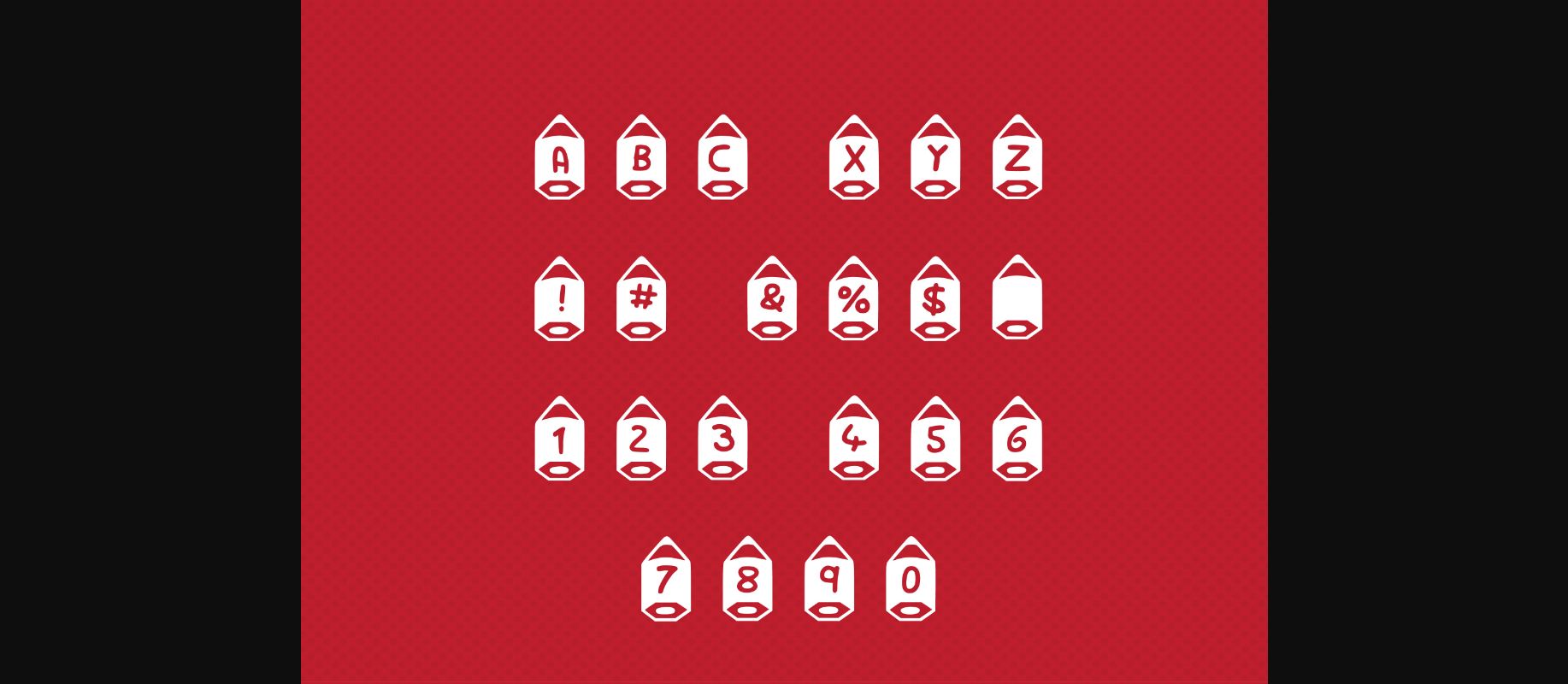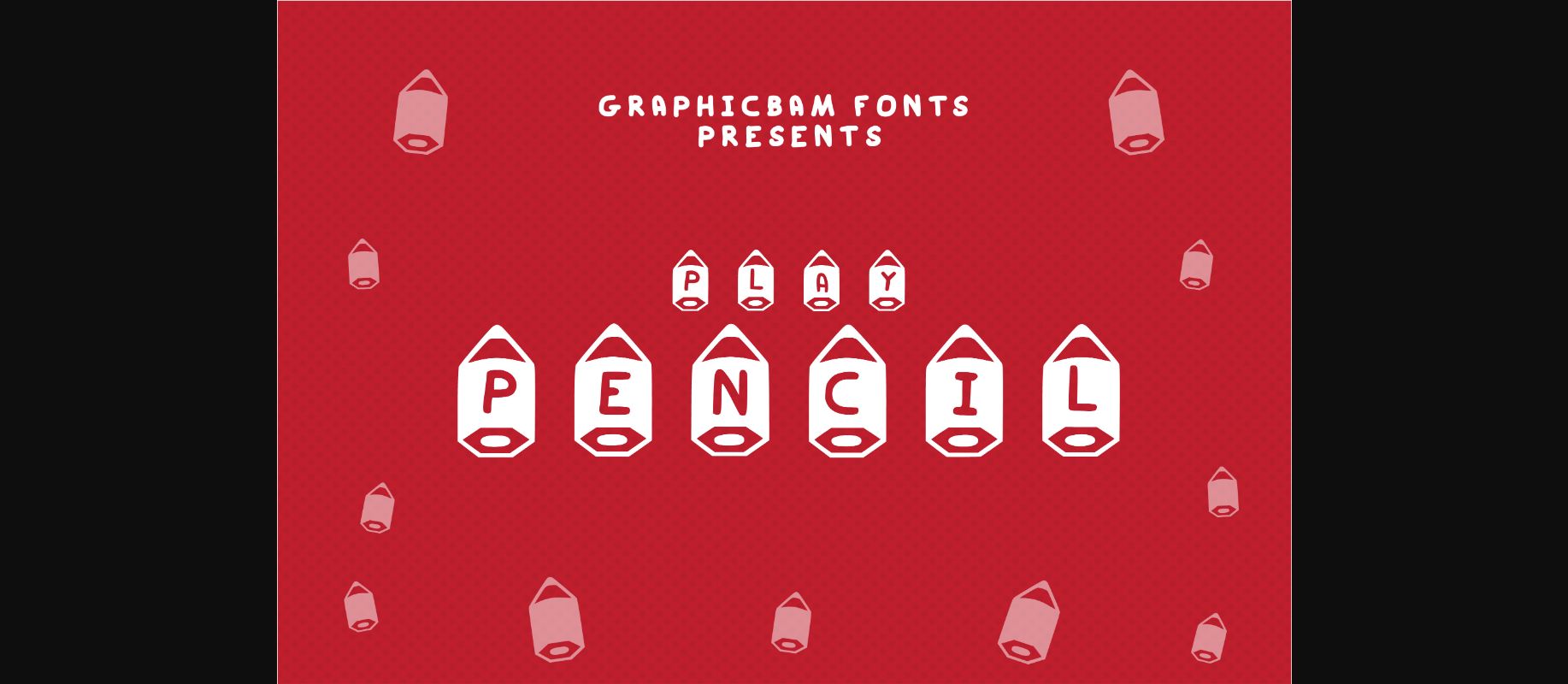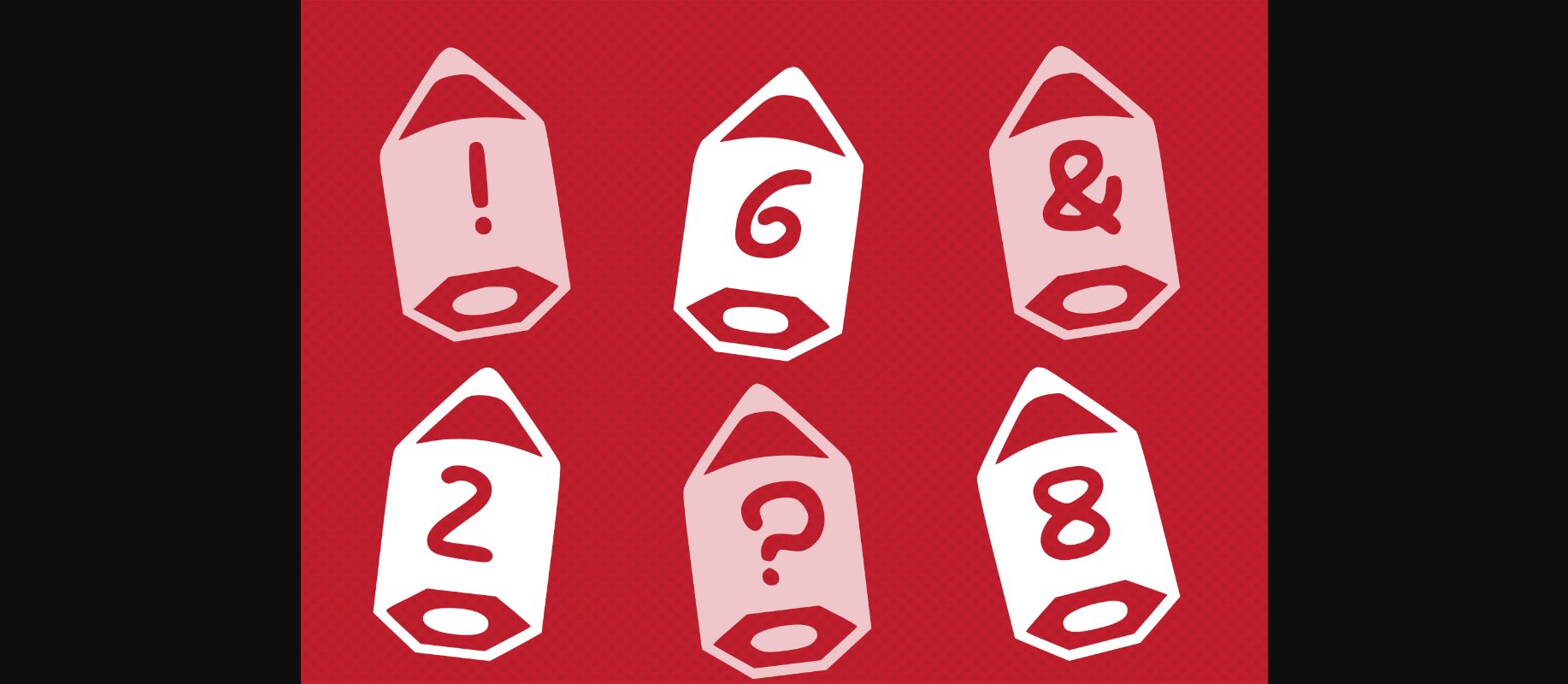
Play Pencil Font
About Play Pencil Font
Play pencil is a fun decorative font suitable for school-related projects and not only! Use it to create outstanding storybook titles, stationery packaging, backpack designs, or more.